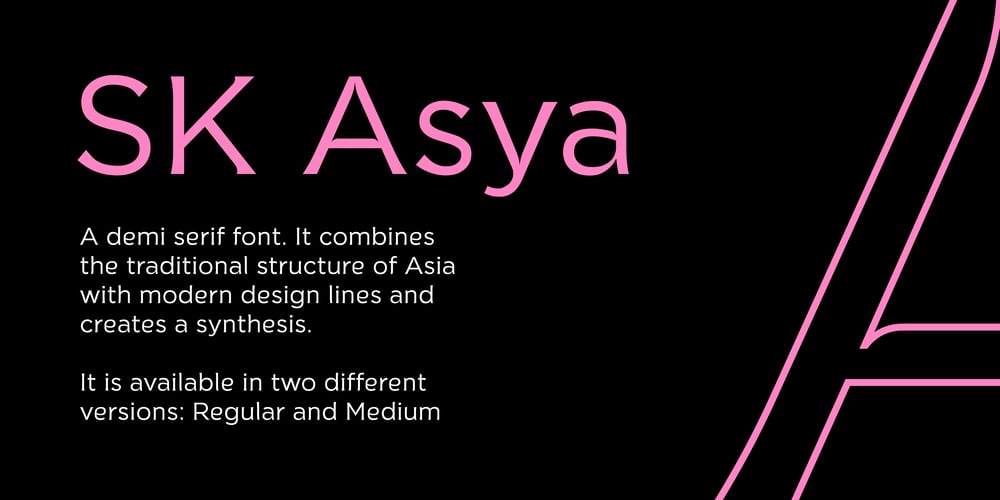
SK Asya
SK Asya font
SK Asya Font Family was designed by Salih Kizilkaya and published by Salih Kizilkaya. SK Asya contains 1 styles and family package options. SK Asya is a demi serif font, it was designed by Salih Kızılkaya in 2020. It combines the traditional structure of Asia with modern design lines and creates a synthesis. It is available in two different versions: Regular and Medium